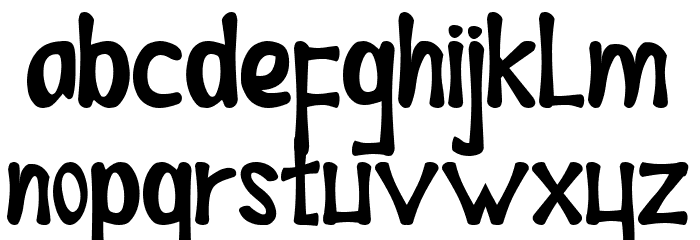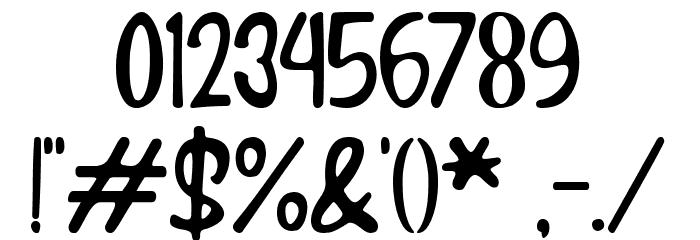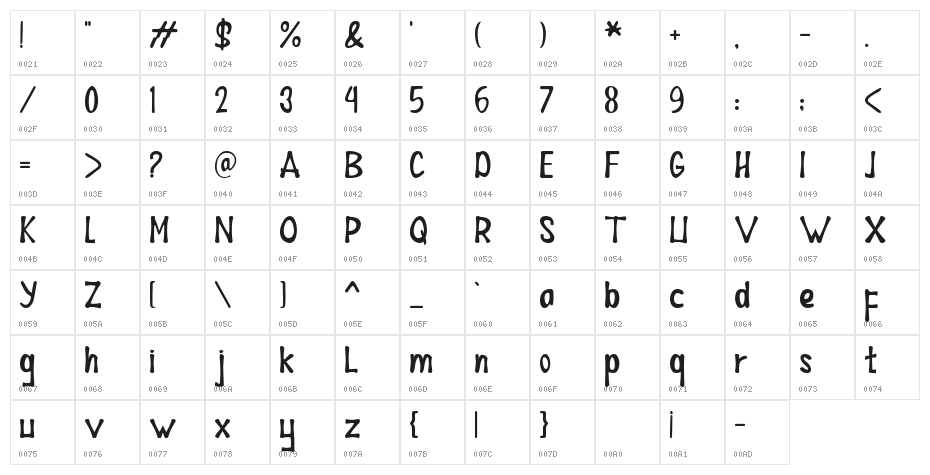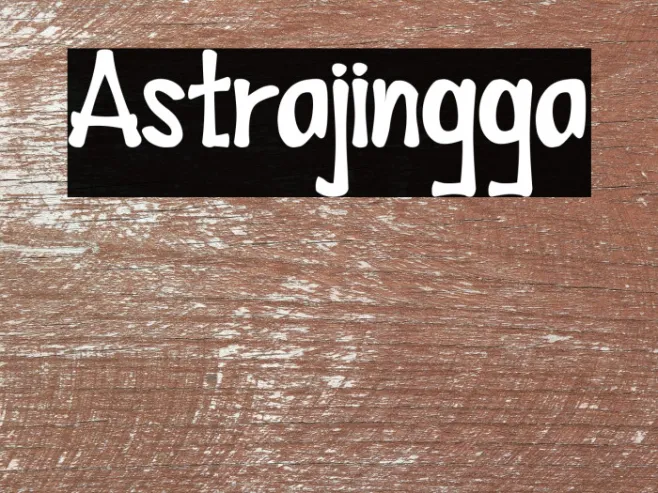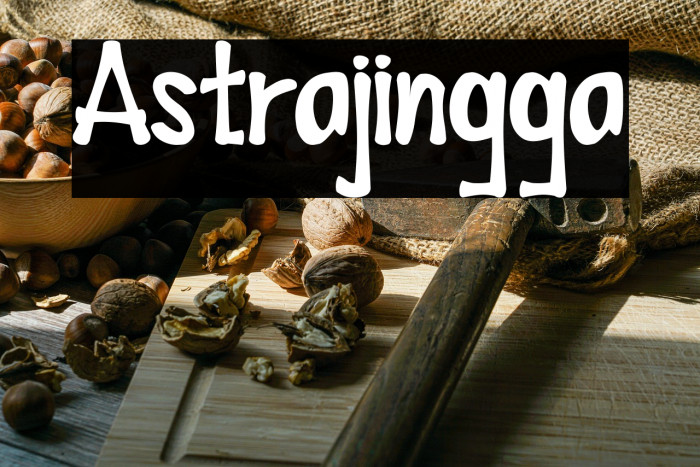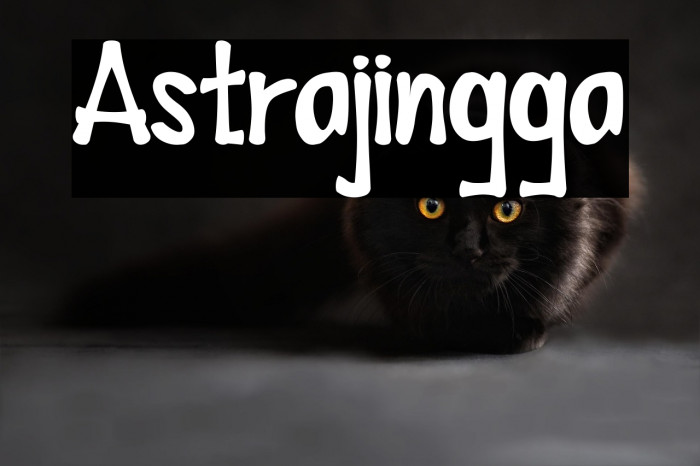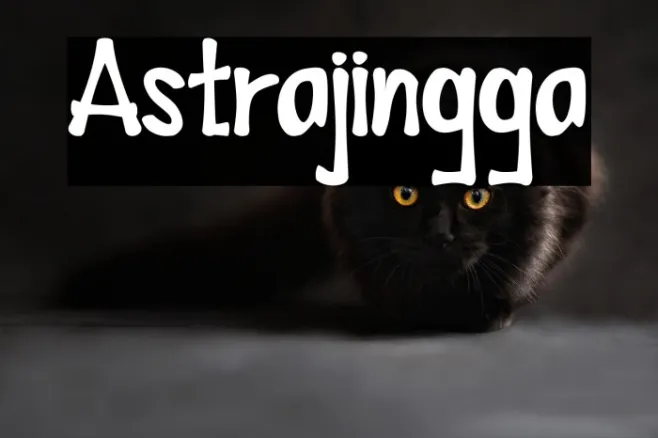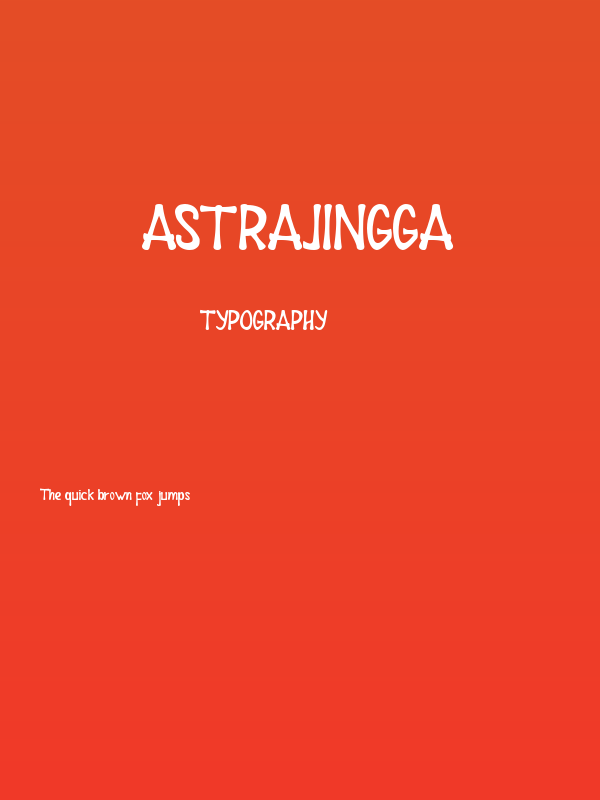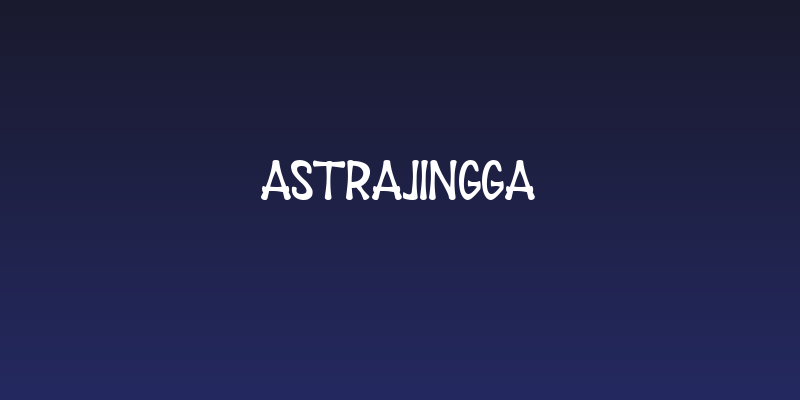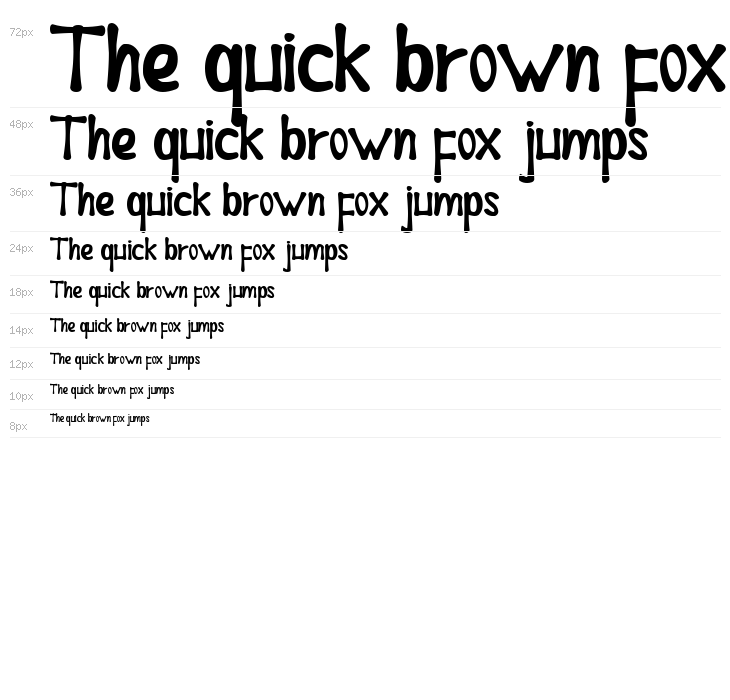
Astrajingga Font
This font features a playful and whimsical design, characterized by its irregular, hand-drawn appearance. The letters have a casual, informal style with varying stroke widths that add a dynamic and lively feel. The uppercase and lowercase letters maintain a consistent flow, while the numbers and special characters complement the overall aesthetic. The font's unique charm makes it suitable for creative projects that require a touch of personality and fun.
A playful, hand-drawn font with a whimsical and dynamic style.
- Proposed Projects: Ideal for children's books, greeting cards, playful branding, and creative posters.
- Use Case: Headlines, Logos, Creative projects